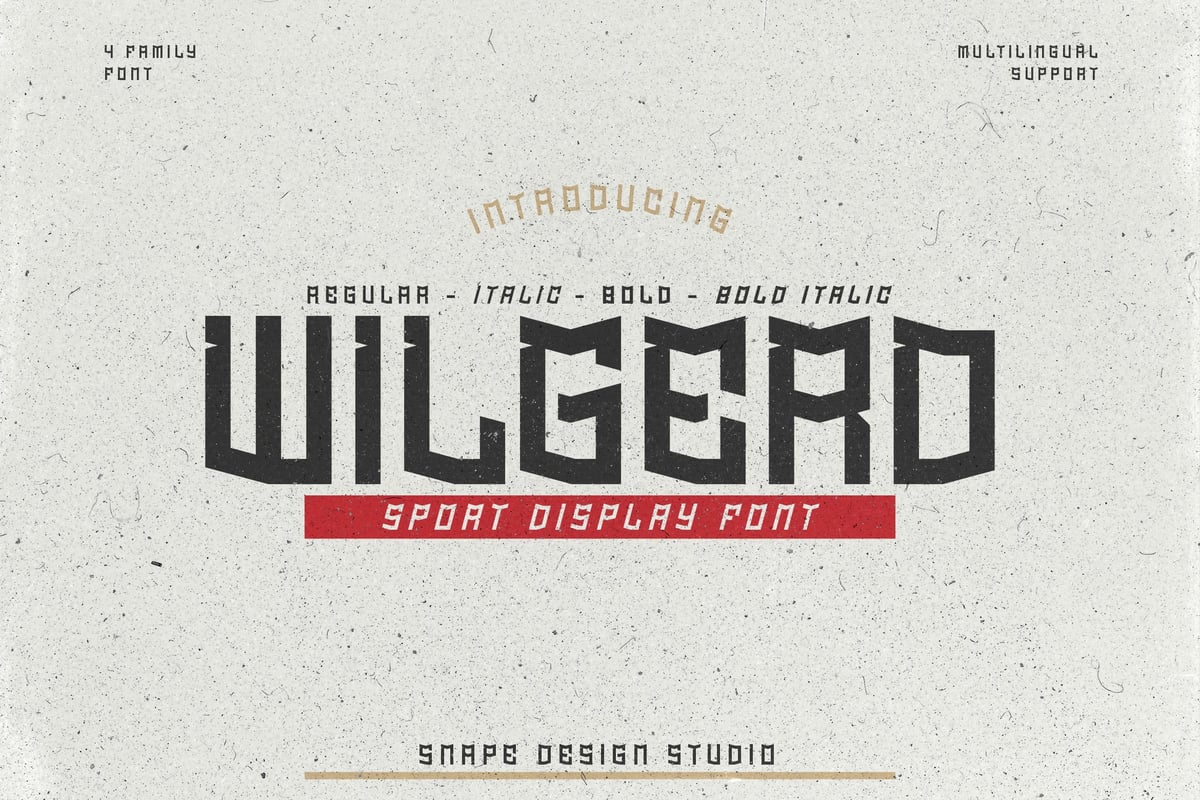
Wilgerd - Sport Font
Command attention with Wilgerd, a bold sport font engineered to make your athletic designs pack a powerful punch. Designed specifically for sport-inspired projects that demand a vibrant, attention-grabbing aesthetic, Wilgerd delivers the bold impact you need. This versatile typeface transforms any project with its commanding presence, making it perfect for designs that require strength and energy. Ideal applications include sport design, team branding, jersey lettering, league graphics, movie ti...